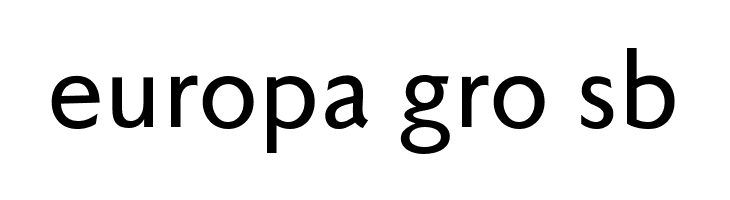
A bold, italicized font with angular, hand-drawn characters and a dynamic style.
A bold, angular, and italicized font with a modern, edgy style.
A bold, 3D sans-serif font with a shadow effect, ideal for impactful headlines.
A bold, distressed font with sharp, angular edges and a grunge texture.
Ornamental dingbat font with border and corner motifs.
An elegant and flowing script font with intricate letterforms and graceful swashes.
A graceful script font with flowing, connected strokes and elegant swashes.
A classic serif font with elegant proportions and clear legibility.
A bold, vintage-style font with playful, exaggerated serifs.
A distressed, chaotic font with jagged edges and irregular strokes.
A modern, rounded font with smooth curves and a minimalist aesthetic.
Playful, illustrated alien and creature icons in circular frames.
A dynamic and fluid script font with elegant, flowing letterforms.
A bold, flowing script font with elegant cursive letterforms and medium contrast.
A refined script font with elegant, flowing strokes and sophisticated flourishes.
A decorative font with mythical creature silhouettes, perfect for fantasy-themed projects.
A clean, modern sans-serif typeface with uniform stroke width and balanced proportions.
A sleek, modern sans-serif font with a light, italic style.
A clean, modern sans-serif typeface with uniform stroke width and rounded edges.
A modern sans-serif font with an italic slant, offering elegance and readability.
A bold, modern sans-serif font with uniform strokes and balanced spacing.
A modern, italic sans-serif font with clean lines and balanced proportions.
A bold, modern sans-serif font with clean lines and excellent readability.
A modern, italicized sans-serif font with bold weight and excellent readability.
A bold, modern sans-serif font with clean lines and excellent readability.
A bold, italic sans-serif font with a modern and dynamic style.
A bold, modern sans-serif font with uniform strokes and high legibility.
Bold, italic sans-serif font with a modern and dynamic style.
A classic serif font with elegant thin strokes and subtle curves.
A light, elegant serif font with a slight italic slant and classic charm.
A classic serif font with elegant strokes and moderate contrast.
An elegant serif font with a classic italic slant, perfect for sophisticated designs.
A classic serif font with pronounced serifs and moderate contrast, ideal for formal use.
A classic serif font with elegant italics and moderate contrast.